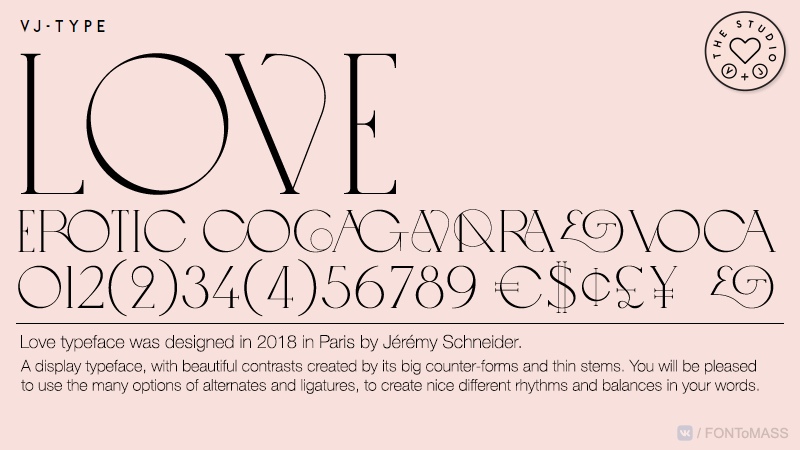
Love Font
Love Font is perfect for romantic wedding invitations, Valentine's Day campaigns, couples therapy materials, romantic restaurant branding, anniversary celebrations, dating app interfaces, love letter designs, engagement announcements, romantic greeting cards, and heartfelt personal messaging.
What makes Love Font so exciting is its extraordinary ability to capture the pure essence of human affection and emotional connection through tender typographic expression that speaks directly to the heart. This beautifully crafted typeface features soft, embracing letterforms with gentle curves and affectionate character variations that immediately convey warmth, intimacy, and unconditional love. The font's romantic construction and heartfelt aesthetic create an immediate sense of emotional safety and deep connection, making it ideal for projects that need to communicate genuine affection, romantic devotion, and the transformative power of love to audiences seeking meaningful relationships and emotional fulfillment in their personal lives.
The Love Font family typically includes multiple tender weights and romantic styles, often featuring light, regular, and bold variations along with intimate italic versions. Romantic font collections frequently offer additional affectionate elements such as heart symbols, cupid ornaments, and loving flourishes that enhance the romantic aesthetic and provide designers with comprehensive tools for creating emotionally touching and relationship-focused communications.
The romantic nature of Love Font makes it particularly effective for targeting demographics that prioritize emotional connection and meaningful relationships in their personal and professional lives. Wedding industry professionals and relationship-focused marketers will find this font especially valuable for materials that must establish immediate emotional trust and connect with audiences seeking authentic love and lasting partnerships.
What distinguishes Love Font is its ability to convey deep emotional sincerity while maintaining the elegance necessary for sophisticated romantic communications. This balanced characteristic makes it suitable for both intimate personal expressions and professional romantic services where projecting genuine care and emotional expertise is crucial.
Professional designers appreciate that Love Font brings invaluable emotional authenticity to projects across industries including wedding services, relationship counseling, romantic hospitality, and personal expression products. Its loving character and romantic appeal make it essential for organizations whose mission centers on celebrating, nurturing, and supporting human love and meaningful relationships.
The genuine emotional warmth of Love Font ensures consistent romantic impact across all love-focused communication applications while honoring the sacred nature of human affection.